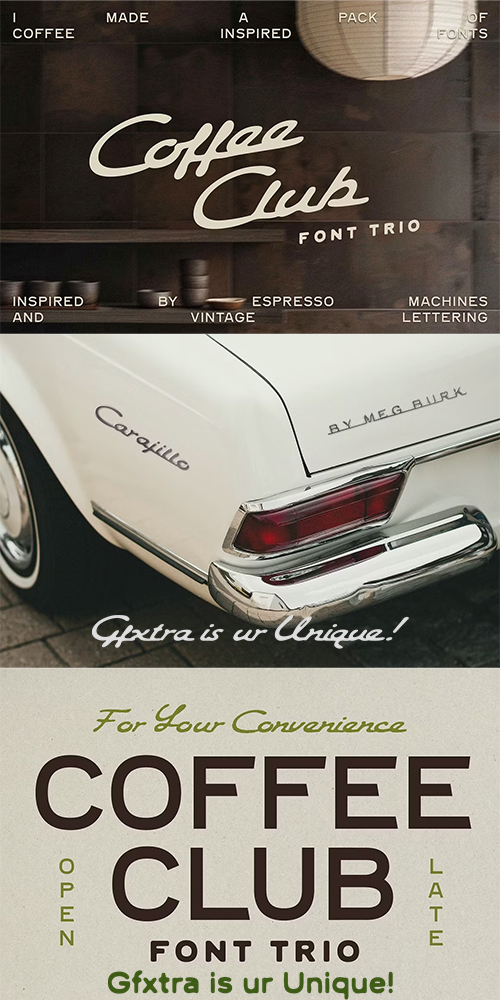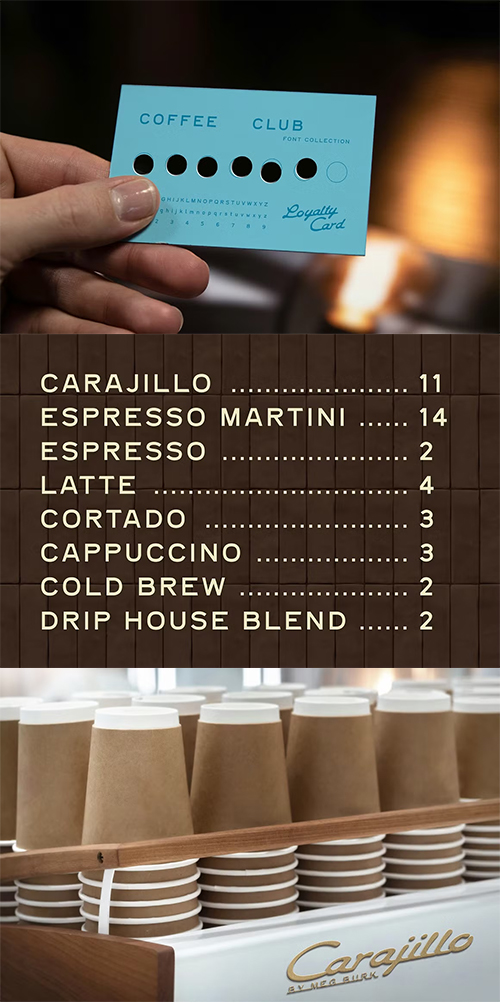
Unleash the Spirit of Retro Coffee Culture
with Signature Typography
- This pack of fonts was inspired by the metal nameplates on espresso machines. I know you also love trying a new cafe - do you find yourself noticing the machines and the emblems on them? They're all different. I noticed a La Marzocco emblem in a style I had never seen before and it hit me - WOW I love these vintage logos.
It comes with a super structured sans serif, Cappuccino which has a lot of variations on it because I got carried away. More vintage - inspired fun. I find Cappuccino and its variants perfect for menu boards, leaving Carajillo to be the main character. Enjoy using these for any brand, it's not just for coffee. But it IS for collaboration, community, inspiration, and cool experiences. Brew in the vibes of Carajillo with Carajillo Radio by Meg Burk on Spotify: And sign up for my email newsletter for previews on upcoming fonts. On my website (find the link in my profile on Creative Market!) I am also available for branding design. I specialize in fully custom brands for businesses, like coffee trailers, coffee shops, hotels, bars, and whatever else business you're opening. Reach out via my website if you'd like to learn more. Carajillo: A romantic vintage script with bold swashes and organic flair perfect as your main headline font. Cappuccino: A robust, structured sans serif family with five stylistic variations. Ideal for body copy, menu layouts, and balance. Cowboy: A hand-sans style with rugged texture and casual flairp erfect for taglines, event branding, or energetic visuals. All fonts include uppercase and lowercase letters, full punctuation, numbers, and multilingual support across 30+ Latin-based languages. Designed for Branded Experiences That Feel Alive and Human Cappuccino’s variations give you unmatched flexibility use one for consistency, mix them for visual rhythm. Carajillo takes center stage in logos and quotes, drawing attention with its elegant imperfections. Designed for modern creatives, the Carajillo Font Collection works flawlessly across all major design platforms: > Note: These fonts are not mobile-installed. For Canva Pro users, upload via desktop license for full access. Follow @bymegburk on Instagram for daily inspiration, fun facts, and random creativity And if you’re building a brand whether it’s a coffee trailer, boutique hotel, bar, or creative studio custom branding design services are available via the creator’s website. The Carajillo Font Collection doesn’t just sit on a page it transforms your vision. With its human touch, vintage soul, and modern flexibility, it’s the perfect tool for brands that want to stand out not just in style, but in story. WHAT'S INCLUDED: